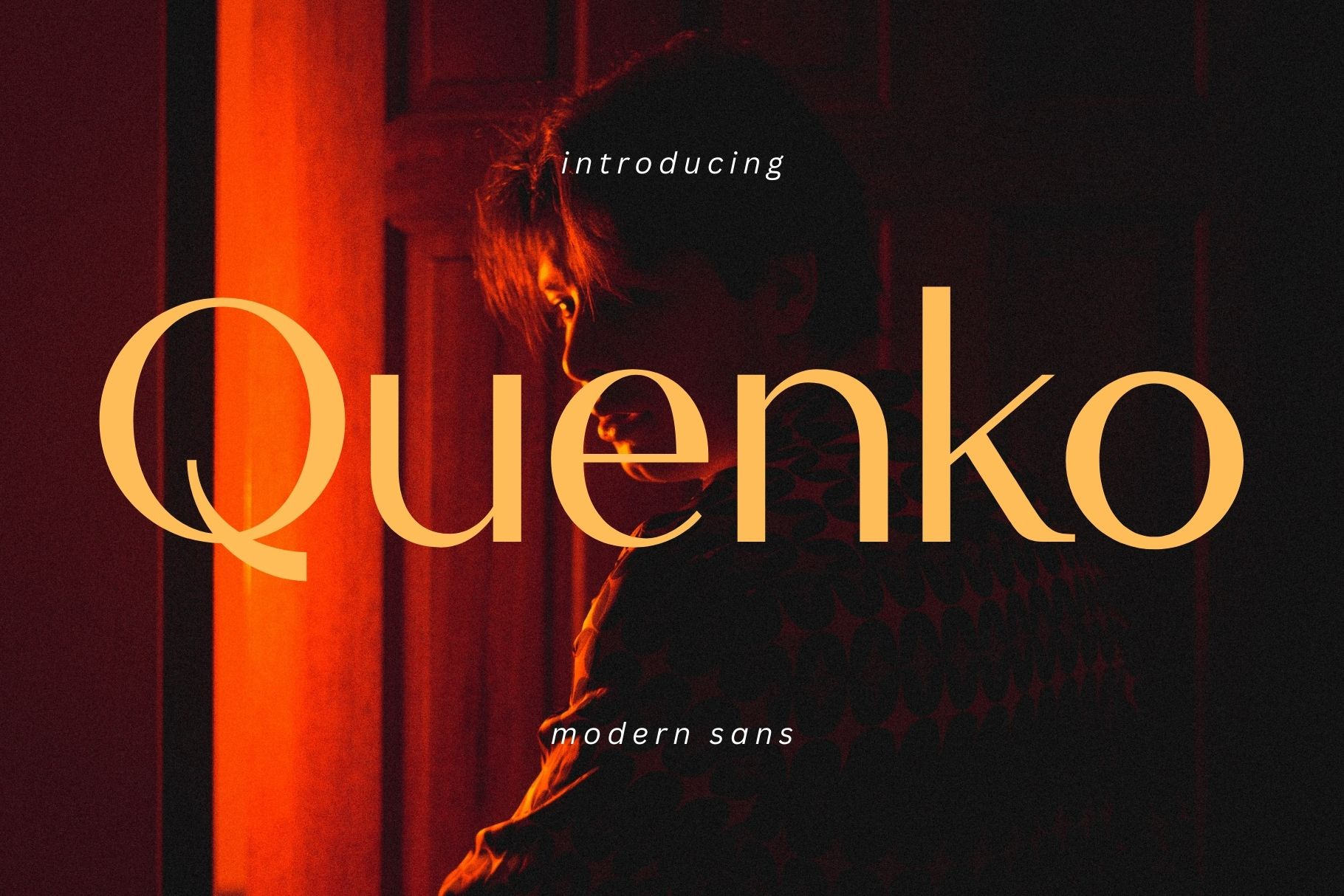
Quenko - Modern Sans Typeface
Introducing 'Quenko' Font:
An exquisite font series designed to elevate your creative projects. Immerse yourself in the allure of meticulously crafted letters that strike the perfect balance between modernity and elegance. Our commitment to precision shines through in the creation of each letter, prioritizing immaculate design to guarantee a flawless typographic expression.
Ideal for:
- Modern Designs
- Product Development
- Packaging Design
- Advertising Campaigns
- Web Design Projects
- Ready for Creative Expression
- Immaculately Crafted Letters